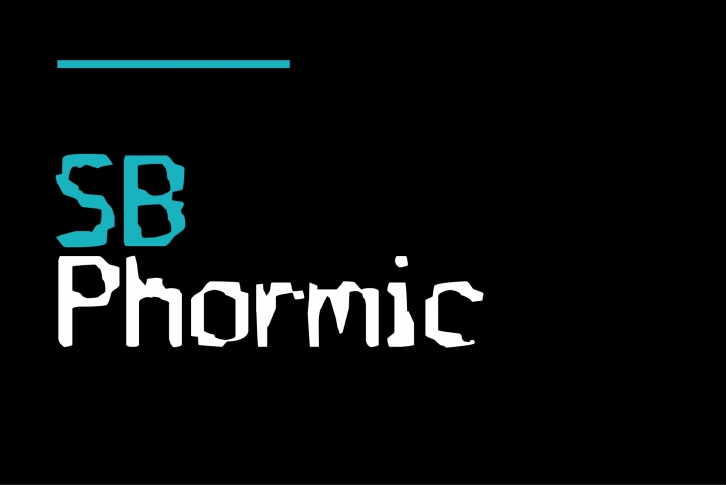
SB Phormic is a trendy and unique font with an authentic style. It was designed by SelfBuild Type Foundry and it's a great choice for creative people who need such a font. It was released on November 25, 2019 and the file size is 2.73 MB. SB Phormic will add an organic vibe to any design idea!